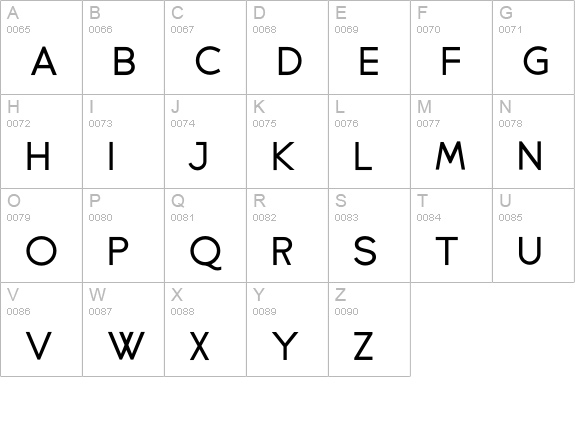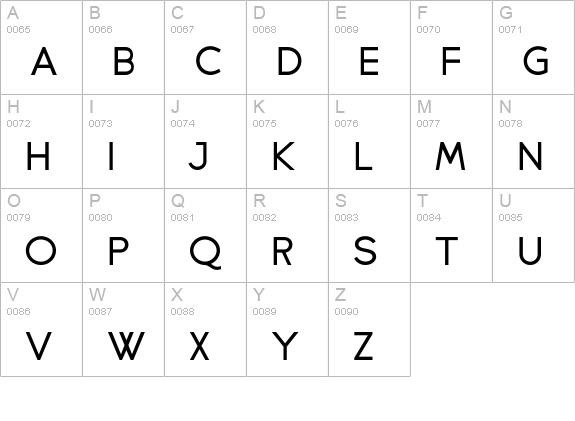
Glode Medium is a balanced, medium-weight variant in the Glode typeface family \xE2\x80\x94 well suited to sub-headlines, navigation, and balanced editorial work.
Glode Medium is a modern and stylish font that exudes elegance and sophistication. Its sleek and streamlined design makes it perfect for a wide range of design projects, from branding to editorial work. The medium weight of the font strikes the perfect balance between being bold and refined, making it versatile and easy to read. The best part about Glode Medium font is that it is completely free to download at FontsMarket.com. You can enhance your projects with this high-quality font without any cost, making it a valuable resource for designers and creatives. Its clean lines and contemporary aesthetic will add a touch of professionalism to any design, making it a must-have in your font collection. Download Glode Medium font today from FontsMarket.com and elevate your designs with this exceptional typeface that combines style and functionality seamlessly.